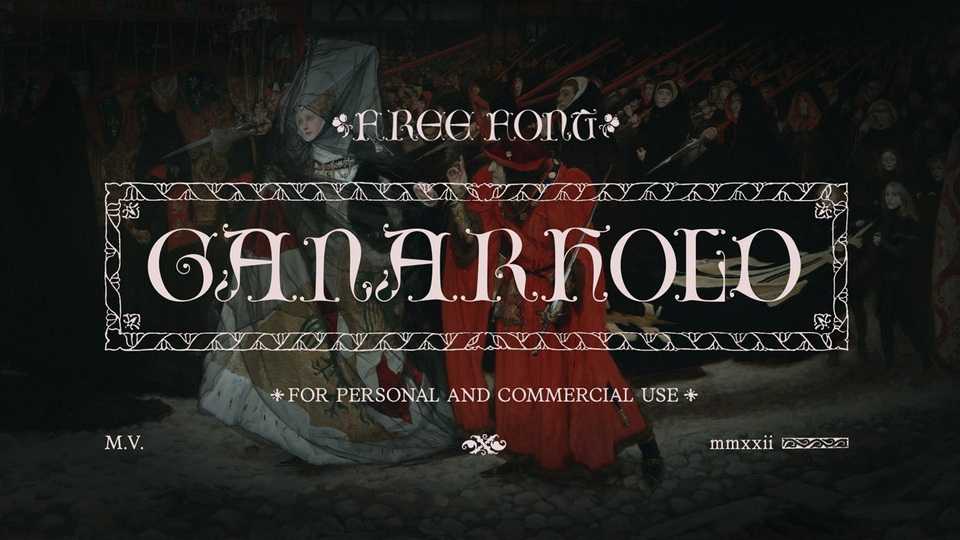
Download Ganarhold font, a Lombard style font inspired by Arts and Crafts revival aesthetics. Ganarhold font is intended for use as initials, monograms, drop caps or wherever fancy letters are desirable.
Designer: Misha Vlasov